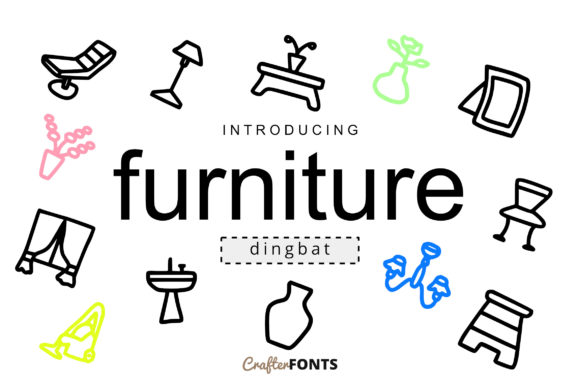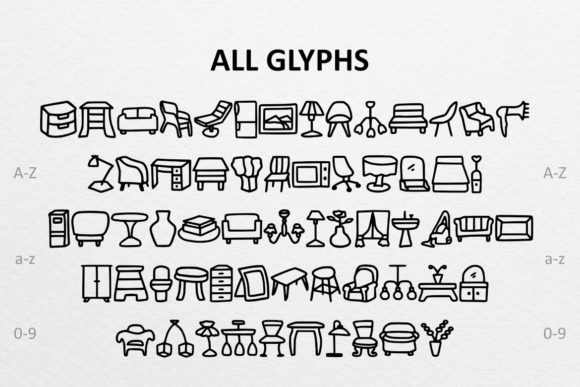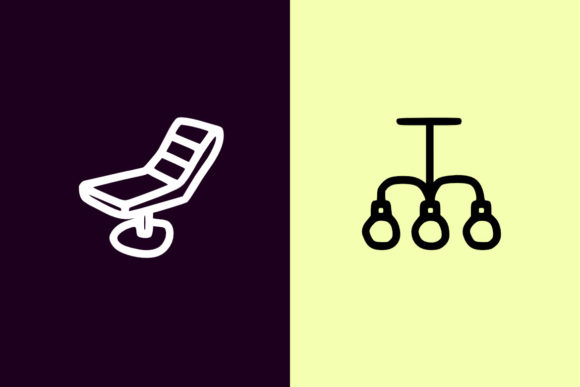
Furniture Doodle Font
Furniture doodles are an essential tool for any logo or design project. They are versatile, colorful, and memorable, and can be customized to fit a wide range of themes and styles. Whether you’re designing a logo for a home decor company, a hospitality brand, or an interior design firm, furniture doodles can add warmth and character to your design.
Here are some simple furniture doodles that would be suitable for many projects:
* A small armchair with a side table and a plant on top. This doodle can be drawn in various styles, such as mid-century modern, Scandinavian, or contemporary, to match the theme of your project. The side table and plant can be added to the doodle to make it more eye-catching.
* A sofa with a pillow and a blanket on the side. This doodle can be customized by changing the color and material of the sofa and adding different throw pillows and blankets. You can also change the shape of the sofa to create a more dynamic design.
* A couch with throw pillows and a coffee table. This doodle can be customized by adding different throw pillows and coffee table items, such as a book, vase, or magazine. You can also play around with the arrangement of the pillows to create a more unique design.
* A dining table with chairs and a vase of flowers on top. This doodle can be customized by changing the style of the chairs and adding different types of flowers to the vase. You can also adjust the thickness of the napkin on the table to make it more realistic.
* A bed with a pillow and a quilt on top. This doodle can be customized by changing the color and pattern of the quilt and adding different pillows. You can also play around with the arrangement of the bedding to create a more unique design.
* A coffee table with a drink and a magazine on top. This doodle can be personalized by changing the type of drink and adding different magazine covers. You can also add different objects, such as a laptop or a remote control, to the coffee table.
* A bookshelf with books on it. This doodle can be personalized by adding different types of books, such as novels, coffee table books, or cookbooks, to the shelf. You can also add different types of furniture, such as a lamp or an armchair, to the background of the doodle to make it more realistic.